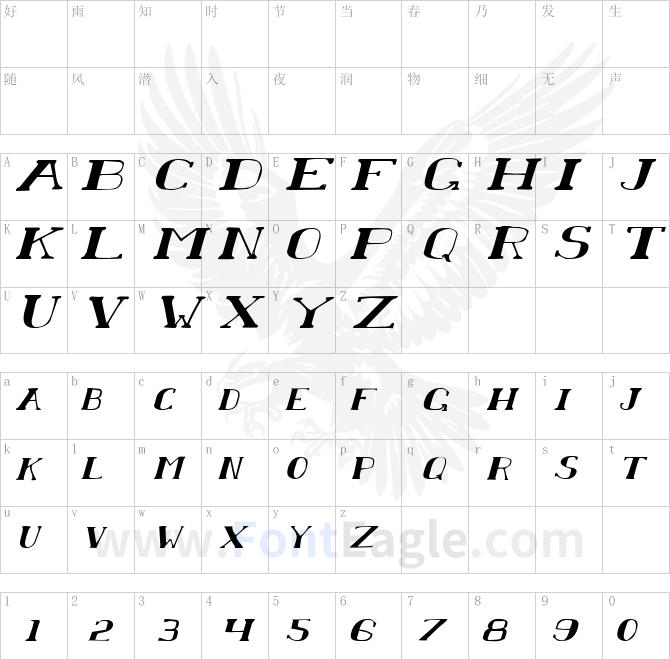
Chardin Doihle Expanded Italic Italic.ttf Font Image
- Font name:Chardin Doihle Expanded Italic
- Font Full Name:Chardin Doihle Expanded Italic
Chardin Doihle Expanded Italic Italic.ttf Characters Sample